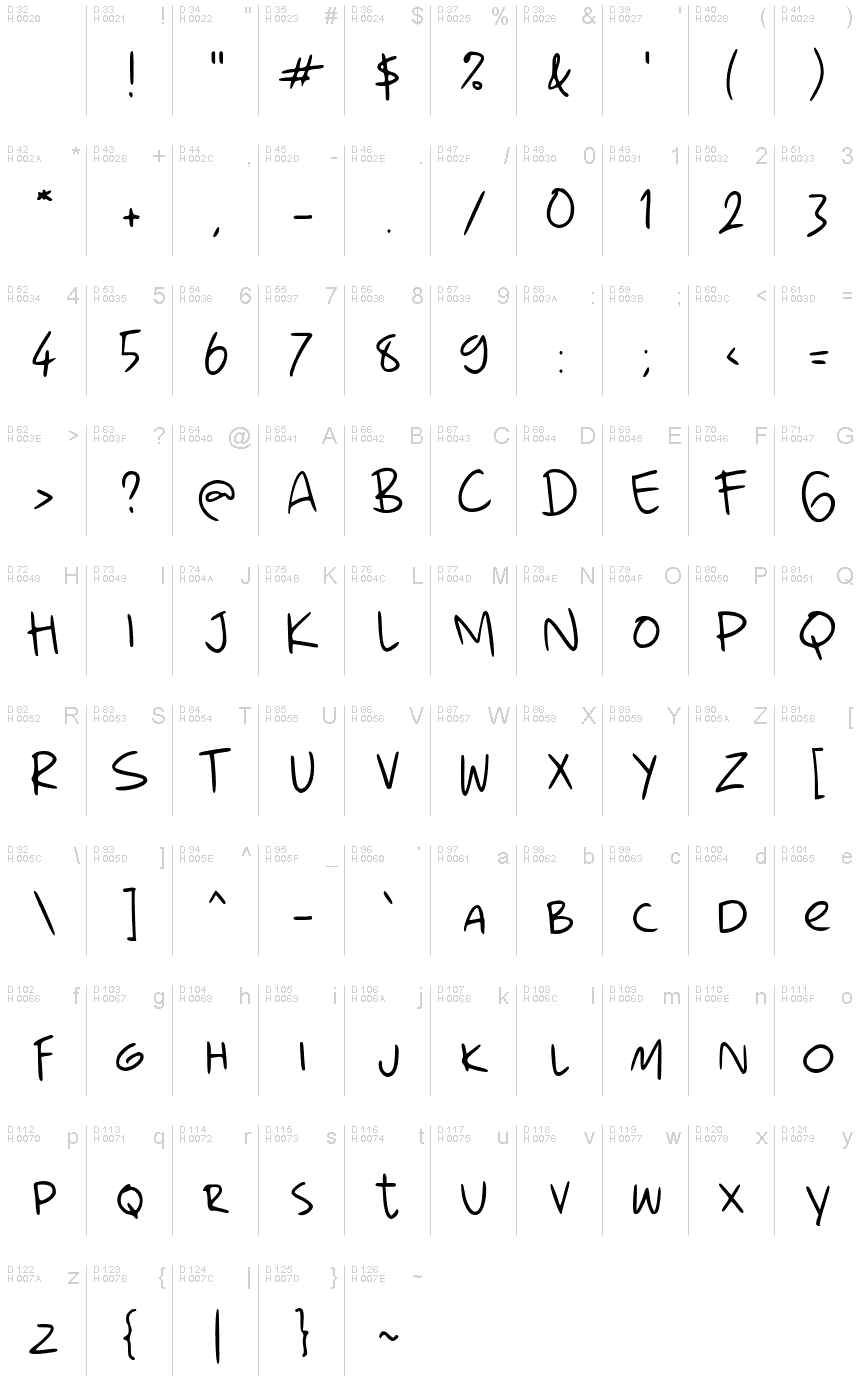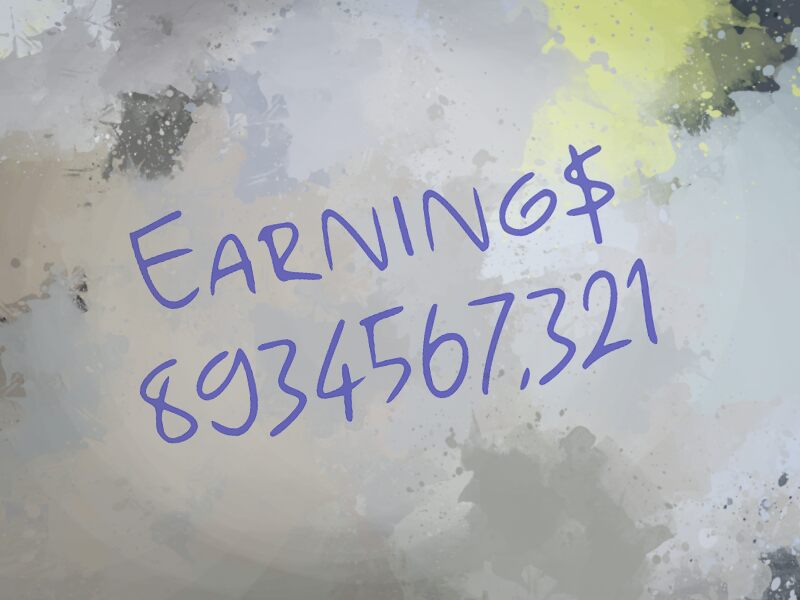
Earning $
Earning$ is a charming handwritten font designed by Wahyu Eka Prasetya. With its semi-light weight, this font is perfect for adding a playful touch to your designs. Whether you're creating business cards, social media graphics or invitations, Earning$ will add a personal and unique feel to your project. Its clean lines and natural flow make it easy to read while still standing out from other fonts. Use it for branding projects, advertising campaigns or even for personal projects like scrapbooking or creating inspirational quotes. With Earning$, the possibilities are endless!